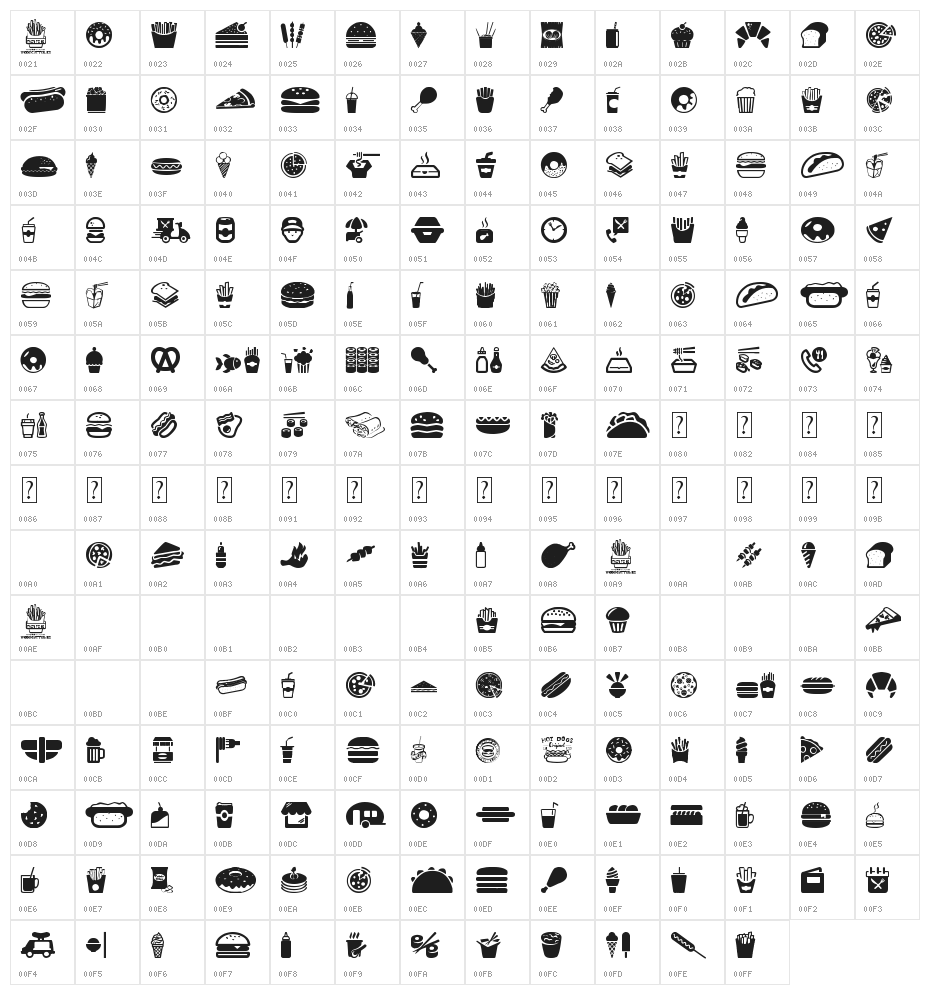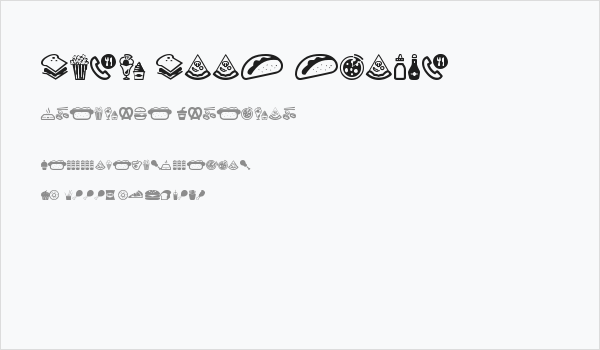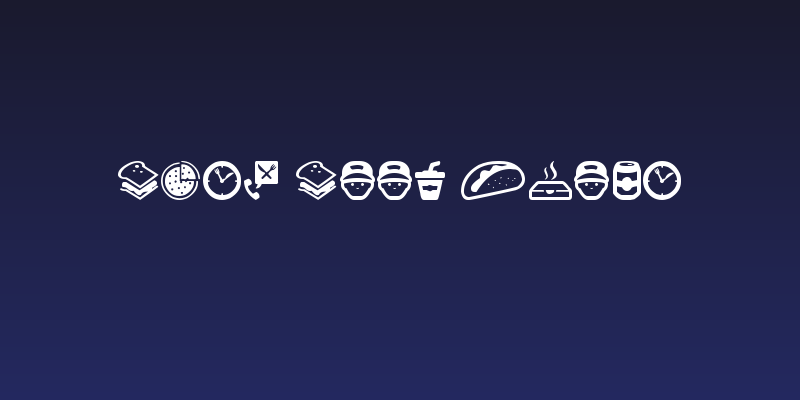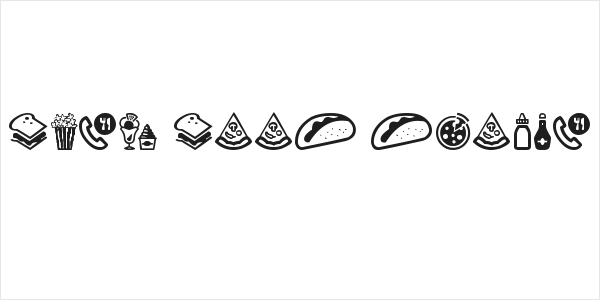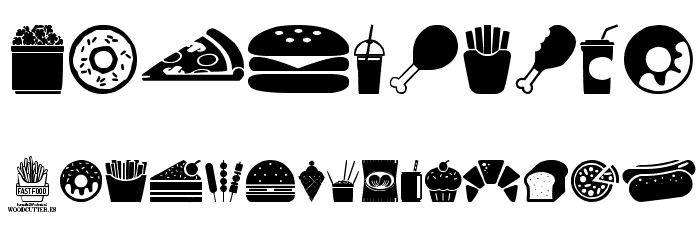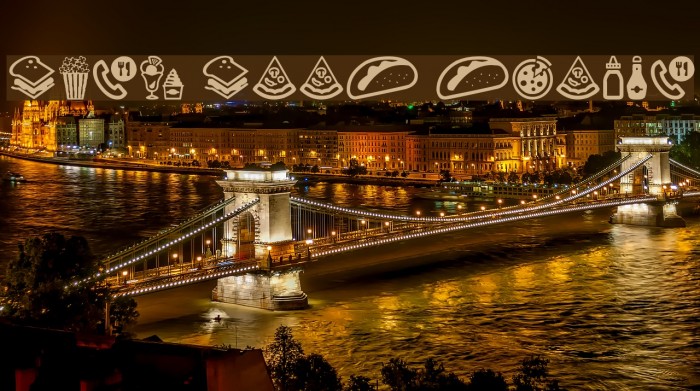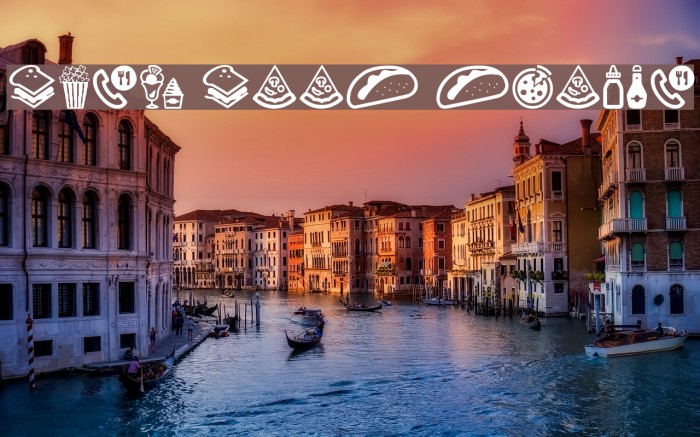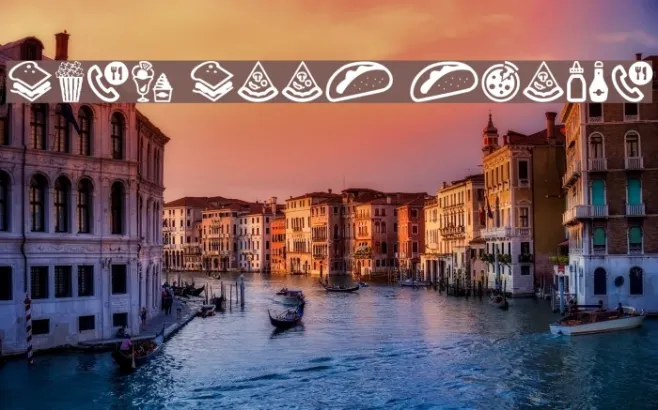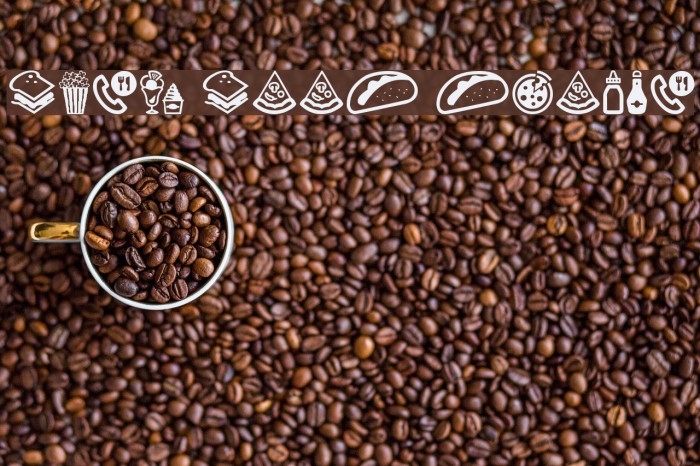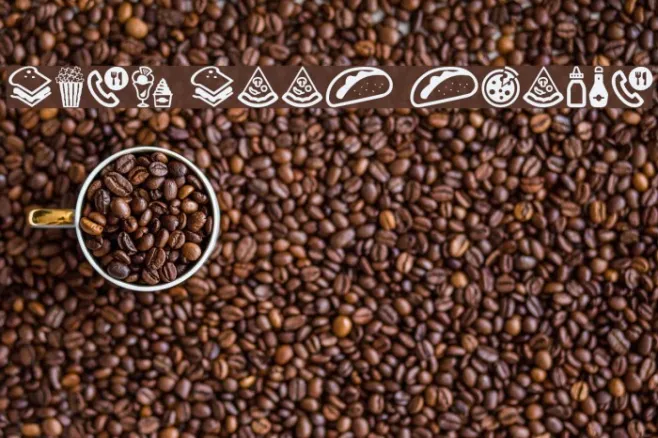
Fast Food Icons Font
Fast Food Icons Description
A playful, bold icon set featuring various fast food items such as burgers, fries, pizza, drinks, and desserts, rendered in solid black silhouettes with rounded and simplified shapes for easy recognition and visual impact.
| Overall Style | Playful, Modern, Decorative |
| Use Case | Icons, Logos, Signage, Packaging, Digital interfaces |
| Proposed Projects | Menu design, food delivery apps, restaurant branding, infographics, packaging, social media graphics. |